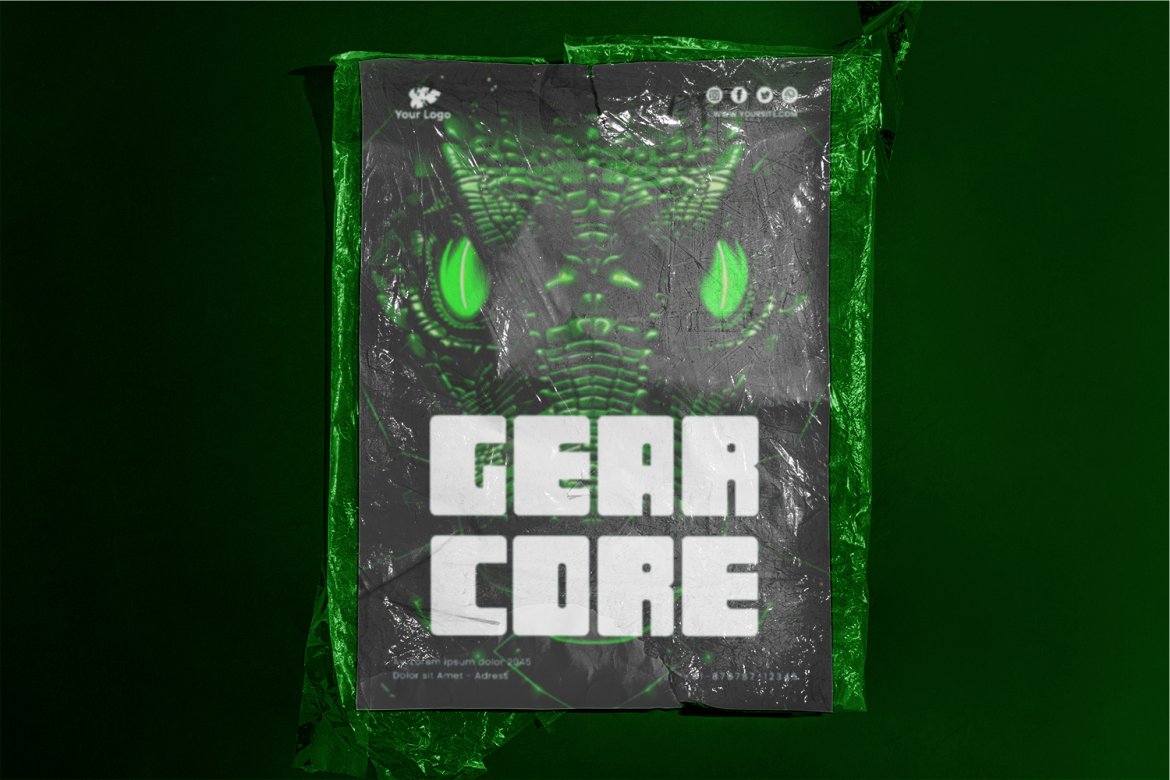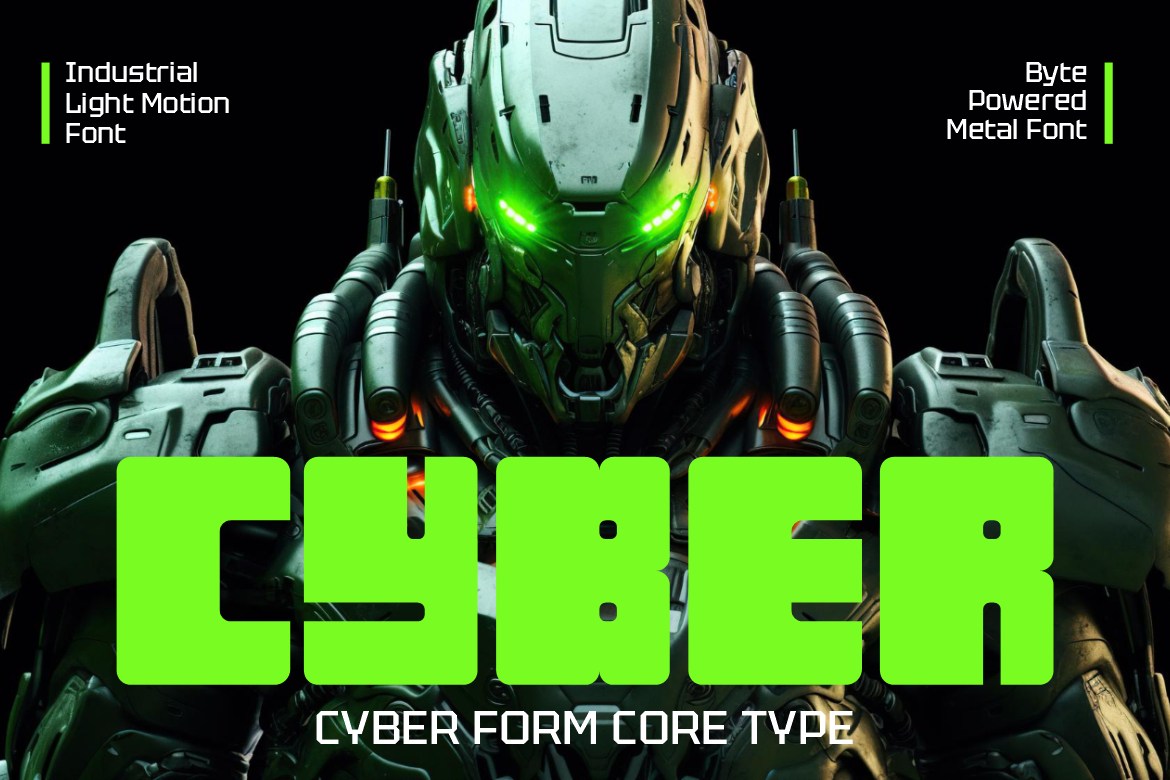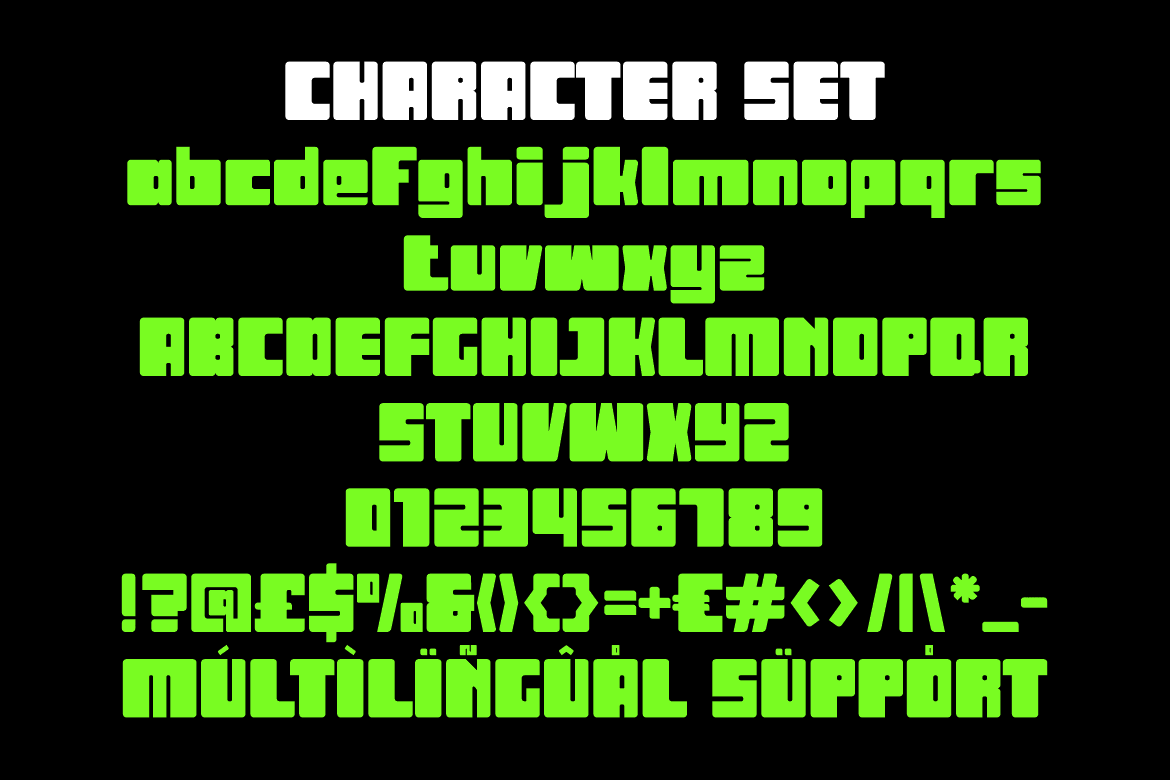
Blockron Industrial Tech Display Font embodies the fusion of digital precision and mechanical strength. Each character is designed with bold, blocky proportions that emphasize structure and solidity. The square forms with subtly rounded edges give it a mechanical yet modern rhythm, balancing sharp geometry with visual smoothness. This font stands tall and heavy, reflecting industrial confidence and futuristic aesthetics. Its even stroke weight and angular construction make every letter feel engineered for high-tech performance. Blockron Industrial Tech Display Font captures the essence of cyber-industrial design — strong, minimal, and visually commanding.
Perfect for logo design, branding, posters, and film titles, this typeface delivers power and presence to every project. It fits perfectly into sci-fi themes, tech campaigns, gaming visuals, or futuristic product branding. Its bold geometry makes it ideal for striking headlines, industrial packaging, and digital interfaces that need a modern edge. The typeface’s commanding presence adds depth and authority to any composition. Whether used in entertainment, advertising, or corporate tech branding, Blockron Industrial Tech Display Font gives every design a high-impact futuristic identity. Built for creators who dare to design beyond limits, it’s where industrial strength meets cyber precision.